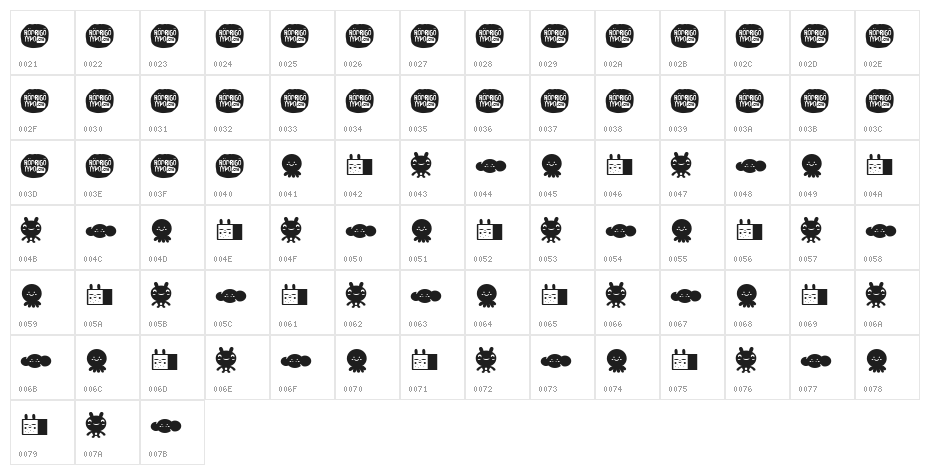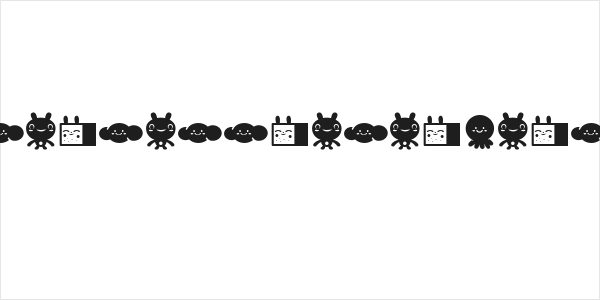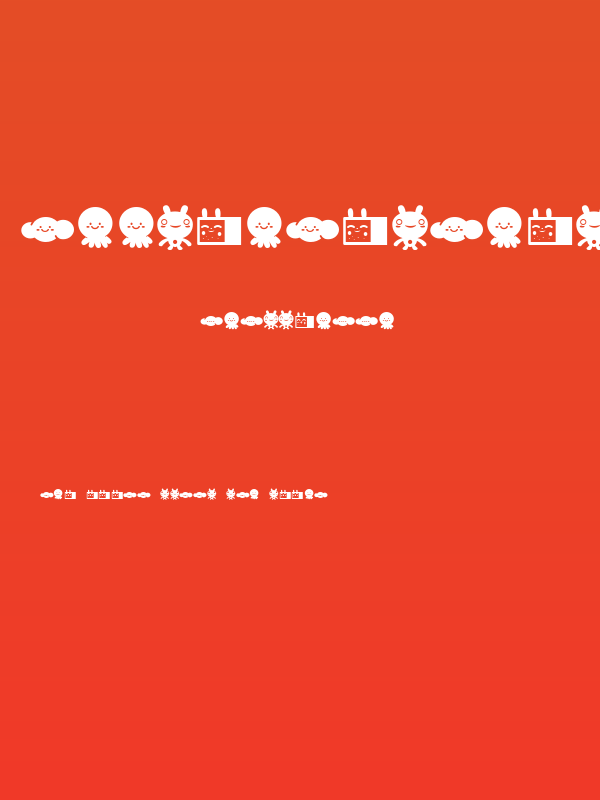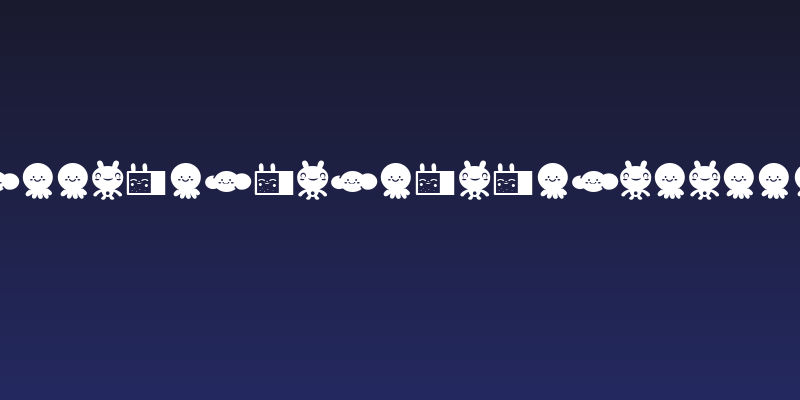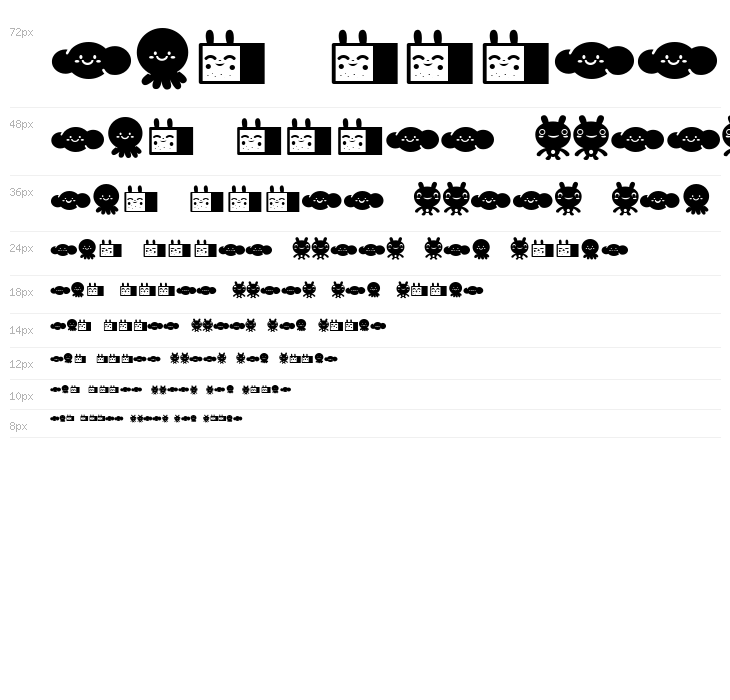
LaMonaProDingbatKawaii Font
LaMonaProDingbatKawaii Description
This font is a playful and whimsical collection of dingbats featuring cute and quirky characters. Each symbol is designed with a cartoonish style, showcasing a variety of adorable creatures and objects with expressive faces. The characters are bold and rounded, giving them a friendly and approachable appearance. This font is perfect for adding a touch of fun and creativity to any project, making it ideal for children's materials, playful designs, and creative branding. The consistent style across all characters ensures a cohesive look, while the unique designs of each symbol provide plenty of variety.
| Use Case | Decorative elements, Creative designs, Children's materials |
| Proposed Projects | Ideal for children's books, playful branding, creative posters, and fun invitations. |